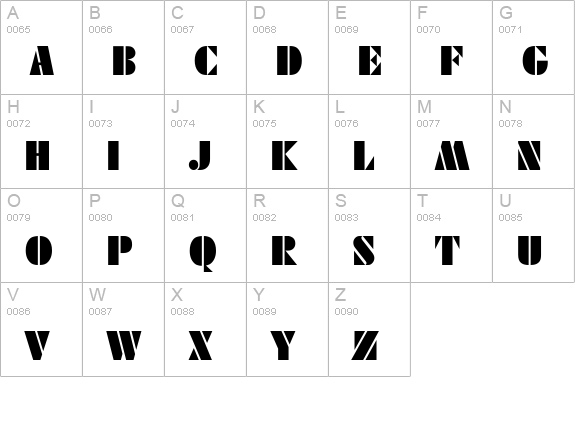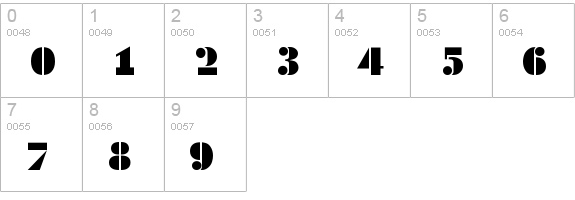
DekoBlackSerial-Regular Font Details
DekoBlackSerial-Regular is the standard, neutral variant in the DekoBlackSerial typeface family \xE2\x80\x94 well suited to general body text, paragraphs, and standard typographic work.
DekoBlackSerial-Regular is a bold and modern display font that exudes confidence and strength. Its sleek lines and sharp edges make it perfect for creating eye-catching headlines and impactful designs. This versatile typeface is suitable for a wide range of projects, from branding to advertising. The font is available for free download at FontsMarket.com, making it easily accessible for designers and creatives looking to add a touch of sophistication to their work. Whether you're working on a poster, logo, or website, DekoBlackSerial-Regular is sure to make a bold statement and leave a lasting impression on your audience. Don't miss out on the opportunity to elevate your designs with this striking font that combines elegance with a contemporary edge. Download DekoBlackSerial-Regular today and take your projects to the next level.